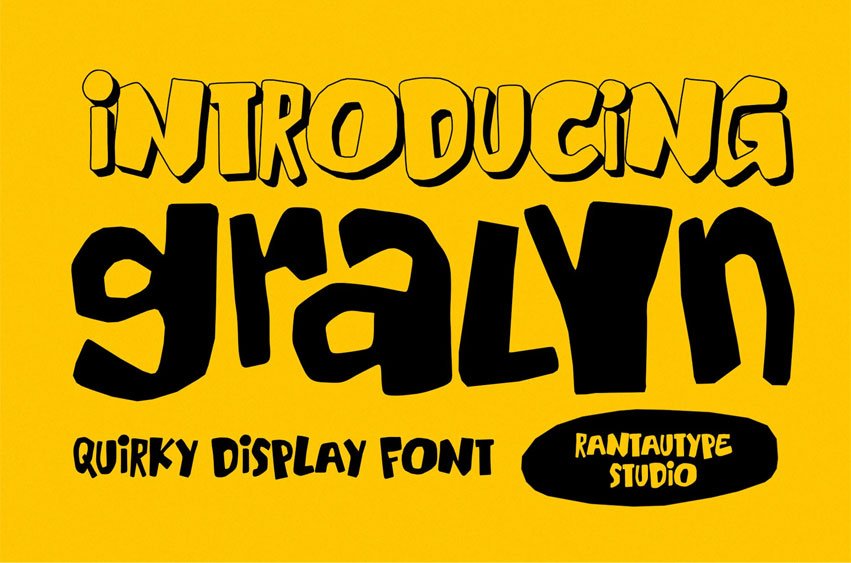
Gralyn Font is fun quirky display with fun vibes is a celebration of creativity, energy, and fearless expression.
Gralyn is a perfectly choice for any creative endeavor, creating, modern, lifestyle design such as logotype, title, cover, branding, invitations, display and magazine, social media posts, advertisements, printed quotes, product packaging, corporate brand, product designs, labels,watermarks, special events and any other project with playful touch.
- Standart Glyphs
- Numberial and Functional
- Alternate and Ligature
- Support Multilingual Character